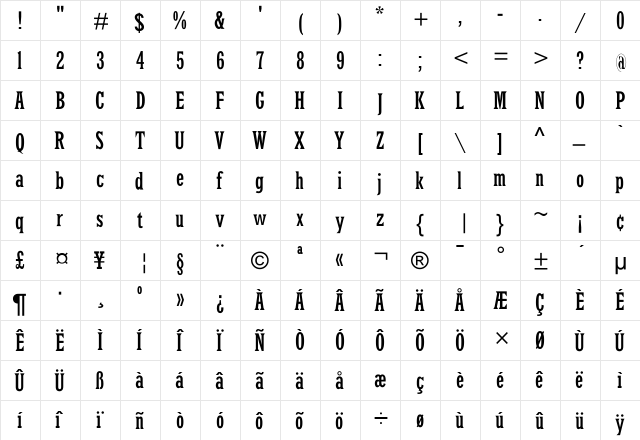
LatinRCond Regular
Design Context for LatinRCond Typeface
LatinRCond offers clean, dependable letterforms without strong stylistic allegiance, making it a practical choice for designers who need flexibility. Its narrow stance lets it pack a punch even in space-constrained designs.